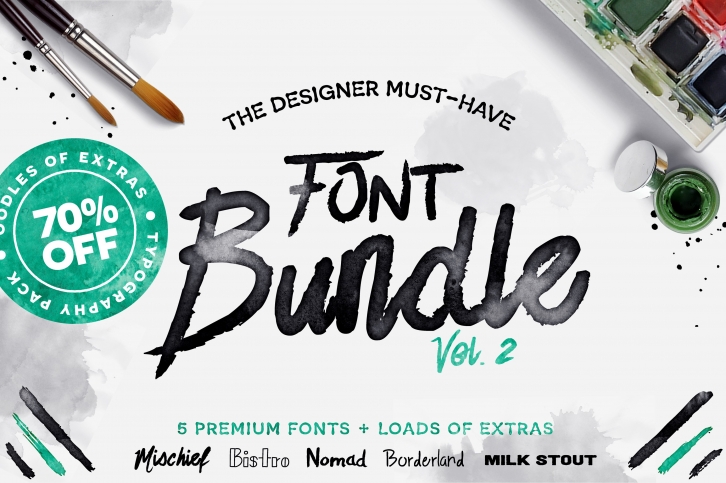
It's official, after months of hand crafting each of these typefaces I've bundled them up and slapped a sweet price tag on em! If you love hand lettering, this font bundle is for you! Perfect for creating logos, typography, and prints with that hand-drawn aesthetic, the Hand Crafted Font Bundle: Volume 2 is filled with everything you need to do get the job done!
This pack includes 20 weights from 5 font families, over 100 hand drawn vectors, hundreds of bonus glyphs including language support across the board, 3 custom brushes, 16 swashes, 15 vector ink splatters, and a few alternate fonts all rolled into one must have font bundle.
HERE'S WHAT YOU GET:
• Mischief Font Family (3 Weights)
Extras include 16 vector swashes + a bonus marker font
• Bistro Font Family (12 Weights)
Extras include over 50 vector artwork pieces, 50 bonus glyphs, & 3 fill options for a two-toned font design
• Nomad Font Family (2 Weights)
Extras include a alternate Nomad font, over 40 vector artwork pieces, 15 vector ink splatters, 3 custom brushes, & over 75 bonus glyphs.
• Borderland Font
• Milk Stout Font Family (2 Weights)